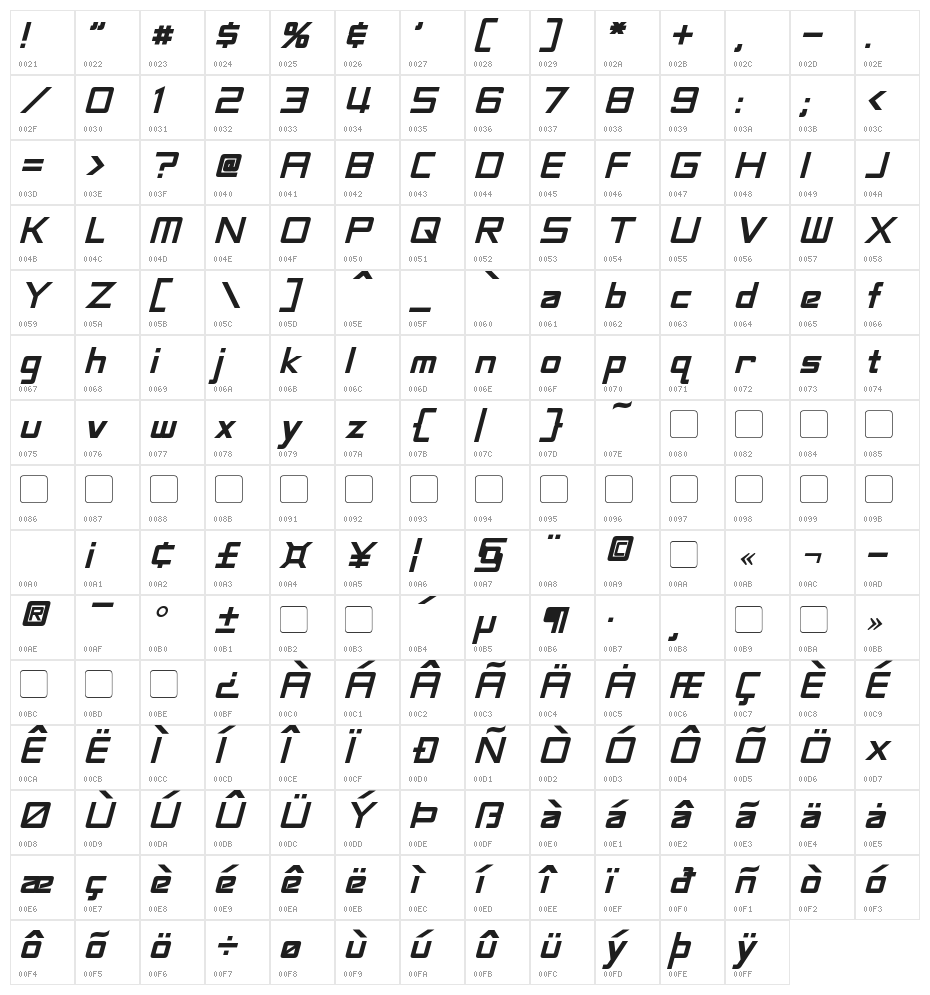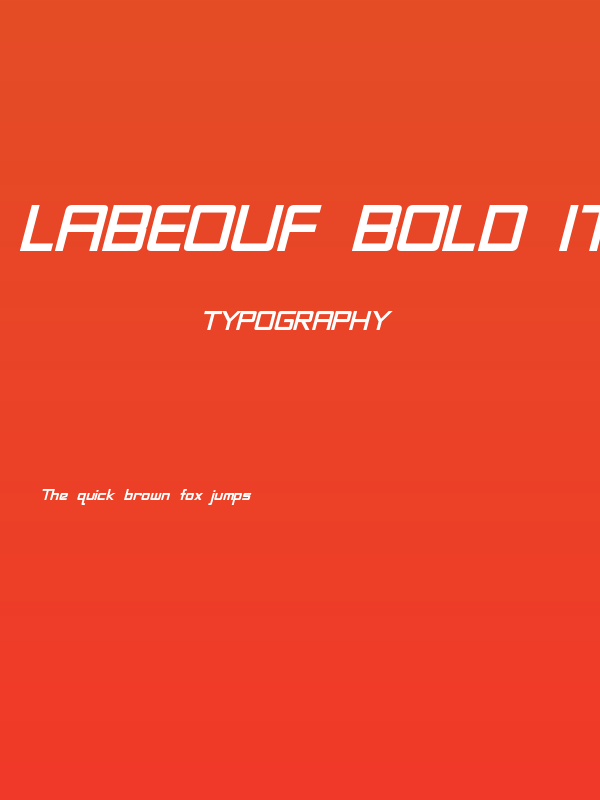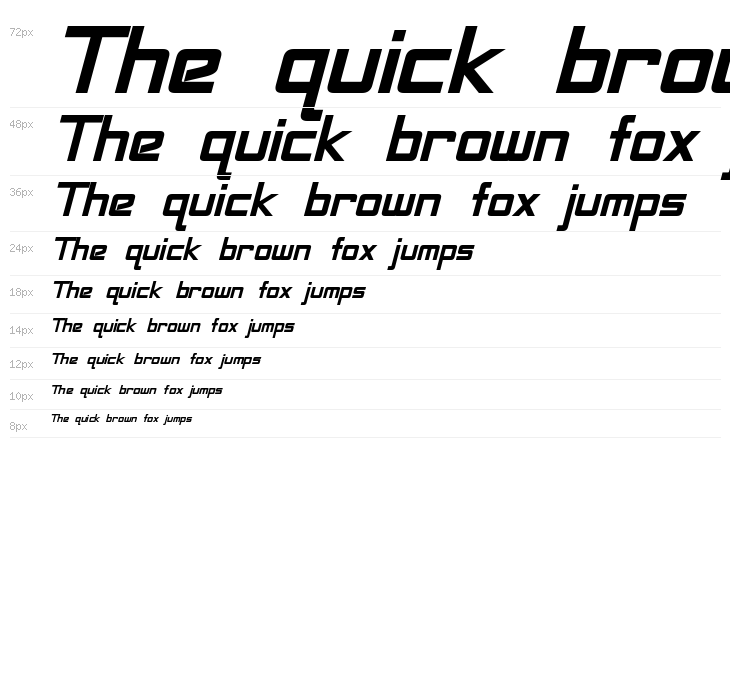
LaBeouf Bold Italic Font
LaBeouf Bold Italic Description
This font exhibits a bold and italicized style with a modern, angular design. The characters are slightly slanted, giving a sense of motion and dynamism. The uppercase and lowercase letters maintain a consistent geometric structure, with sharp edges and clean lines. The numbers and special characters follow the same aesthetic, ensuring uniformity across all glyphs. The font's boldness is evident in its thick strokes, which are evenly distributed, providing a balanced appearance. The italic slant adds a touch of elegance, making it suitable for both contemporary and futuristic designs.
| Proposed Projects | Ideal for branding, advertising, and digital media projects that require a modern and dynamic look. |